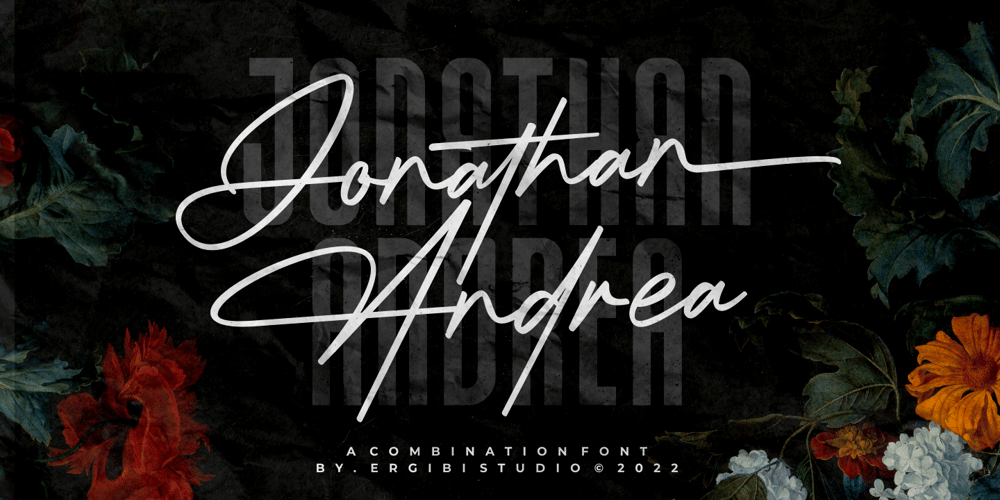
Jonathan Andrea Font Family was designed by Riyadh Rahman and published by Ergibi Studio. Jonathan Andrea contains 3 styles and family package options. JONATHAN ANDREA A font combination, Modern signature and elegant Sans, we made this font with care and detail touchwhich makes the perfect font combination that you can apply for your design that needs an elegant touch, classy looks, and minimalist. perfectly for headlines, wedding, social media, logos, posters, packaging, T-shirts,coffee shops, restaurants, magazine’s headers, signs or gift/post cards,cafe’s and weddings or any type of advertising purpose.What’s Included : Standard glyphs Ligatures International Accent Works on PC & Mac Simple installations If there is a problem, question, or anything about my fonts, don’t hesitate to ask!Big Thanks ~ Ergibi Studio